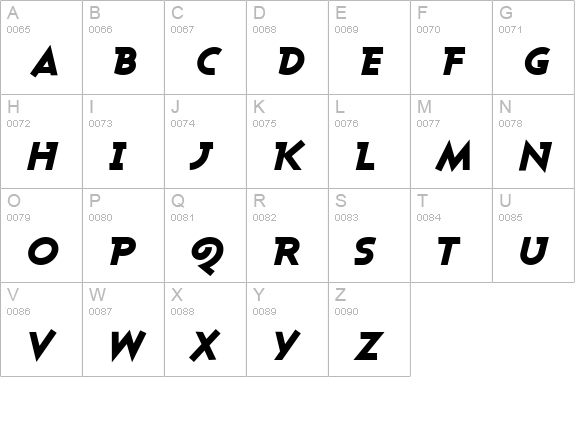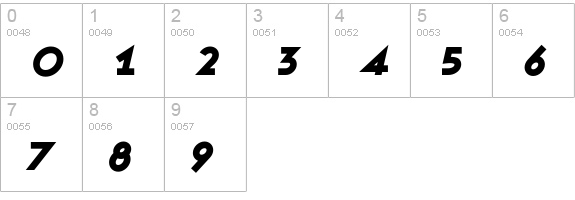
Ashby Black Italic is a maximum-weight, dramatic, italic variant in the Ashby typeface family \xE2\x80\x94 well suited to maximum-impact headlines, posters, and packaging.
Introducing Ashby Black Italic font - a sleek and stylish typeface that exudes elegance and sophistication. Its bold and slanted design adds a touch of modernity to any project, making it perfect for branding, editorial design, and more. The Ashby Black Italic font is versatile and eye-catching, sure to make a statement wherever it is used. The best part? Ashby Black Italic font is available for free download at FontsMarket.com. Don't miss out on this fantastic opportunity to enhance your designs with this stunning typeface. Download Ashby Black Italic font today and elevate your projects to new heights!